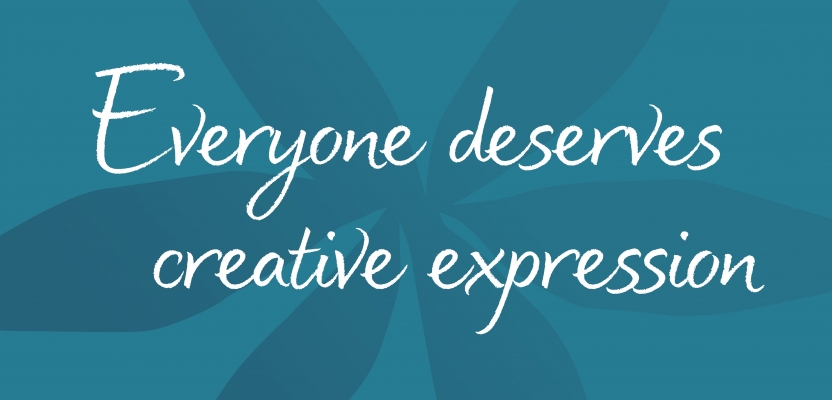
When it comes to accessibility, one sector of society that appears to have been largely neglected is dyslexic readers. As a lifelong keen reader (and professional writer for almost two decades) the concept of struggling so fundamentally with the written word is quite alien to me and so it’s always a condition that has fascinated me.
It’s also always puzzled me why nobody has made any great advances towards making reading more approachable for dyslexic readers. Looking for answers online I’m met with little more than suggestions such as “use comic sans because the letters are further apart.” This is a suggestion that’s half-arsed at best and flat-out patronising at worst.
Enter Lewis Moberly, a brand design agency that was recently asked with designing a new script typeface with the dyslexic reader in mind by, of all brands, Tropic Skincare. The brand approached the agency with the task of designing a bespoke typeface after discovering the difficulty customers were facing in reading the script on their website.
The challenge was to ensure the new typeface is readable and accessible to all, “without compromising on Tropic’s sophisticated and vibrant brand expression.”
Behind the idea
In the beauty industry, 25% of workers are dyslexic and across all industries 1 in 7 people reportedly have difficulty reading and writing. Typically, “Sans Serif” fonts have been the go-to choice for dyslexic readers and similarly simple and “spacey” fonts like the dyslexia-friendly “Dyslexie” font.
For too long, however, the neuro-diverse community has missed out on volume, variety and verve. Lewis Moberly wanted to “create an exciting and engaging typeface, breaking away from previous designs to create something modern and sophisticated.”
Named after the founder of Tropic Skincare Susie Ma, Susie is the first script type to rewrite the rules for challenged readers. The font aims to “unite clarity and beautiful disparities” and “untie the laces of letters to open, approachable, confident forms with textured irregularities.”
Several alternative versions of letters are included to align with the handwritten feel. This makes for an approachable and dynamic typeface; bringing pleasure to those who find reading a challenge, and hopefully to everyone else too.
Game-changer or PR stunt?
Emily Fox, creative director at Lewis Moberly, explains: “Our challenge was to create a handwritten typeface that could be easily read on all Tropic products and communications – where it may sometimes appear against a more complex backdrop. We were constantly testing and refining the script to ensure legibility, whilst not compromising on its expressive design.”
It’s a neat idea with its heart in the right place and Lewis Moberly tested the typeface on various dyslexic readers throughout the design process to ensure it was legible. The typeface was also oofficially approved by the BDA (British Dyslexic Society).
Otherwise, as far as I can tell, the research has been pretty minimal. It is, however, a necessary shot across the bow for those looking to reach neuro-diverse readers. Perhaps the next time somebody attempts something similar they might be encouraged to dig a little deeper?